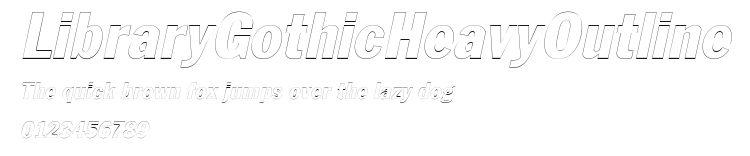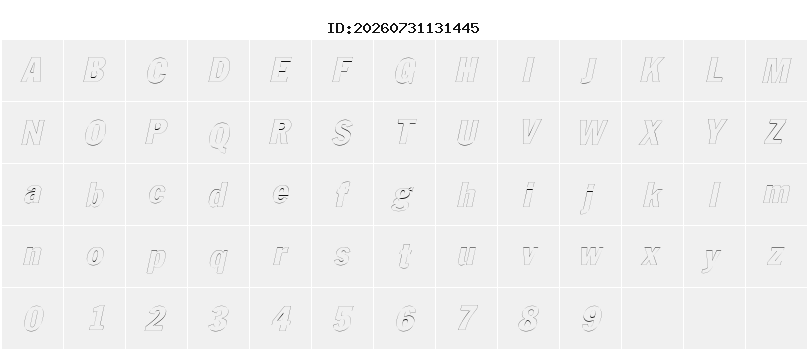
LibraryGothicHeavyOutline Preview
• Font Name: LibraryGothicHeavyOutline
• Font ID: SWFTE:LibraryGothicHeavyOutline Italic
• Full Font Name: LibraryGothicHeavyOutline Italic
• Version: Rev. 003.000
• PostScript Name: LibraryGothicHeavyOutlineItalicSWFTE
• Character Count: 234
About LibraryGothicHeavyOutline.ttf
LibraryGothicHeavyOutline.ttf is a modern, elegant sans-serif font designed for ultimate readability and visual harmony. Perfect for branding, headlines, web design, and print materials.